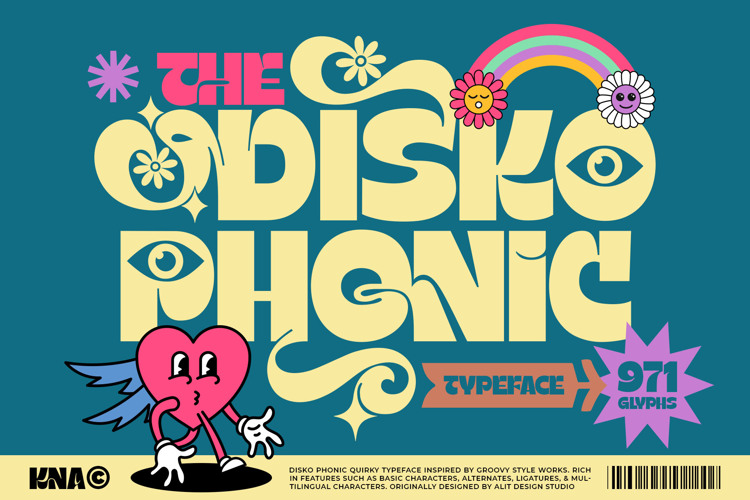
Disko Phonic Font
Disko Phonic: A Quirky Retro-Groovy Display Typeface
Step into a time machine and bring the vibrant energy of the '70s into the modern era with Disko Phonic. Inspired by the playful spirit of groovy style works, this typeface is a bold celebration of curves, character, and creative freedom. Whether you’re designing for a high-energy brand or a whimsical editorial project, Disko Phonic offers an unparalleled level of personality.
The Aesthetic: Retro Meets Modern Playfulness
Disko Phonic is more than just a font; it’s a design toolkit. It features thick, bubbly letterforms that feel both nostalgic and fresh. The "quirky" nature of the typeface is highlighted by its fluid shapes and unexpected flourishes, making it perfect for headlines that need to pop.